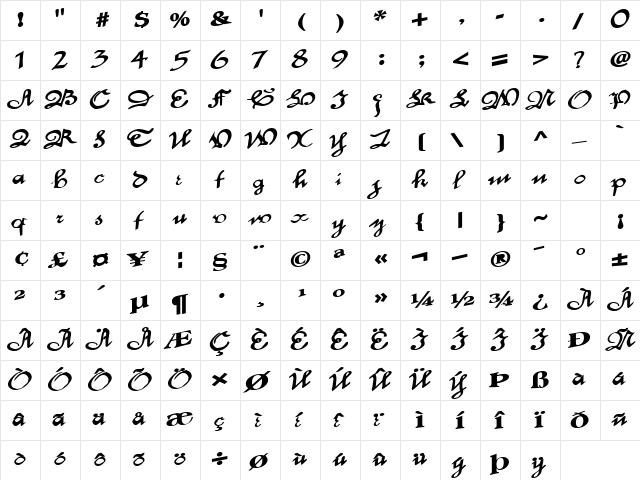
CapSizeBold Bold
Design Context for CapSizeBold Typeface
CapSizeBold is a composed and adaptable typeface that performs quietly and consistently across a wide range of design contexts. The heavy weight commands attention and anchors typographic hierarchies.